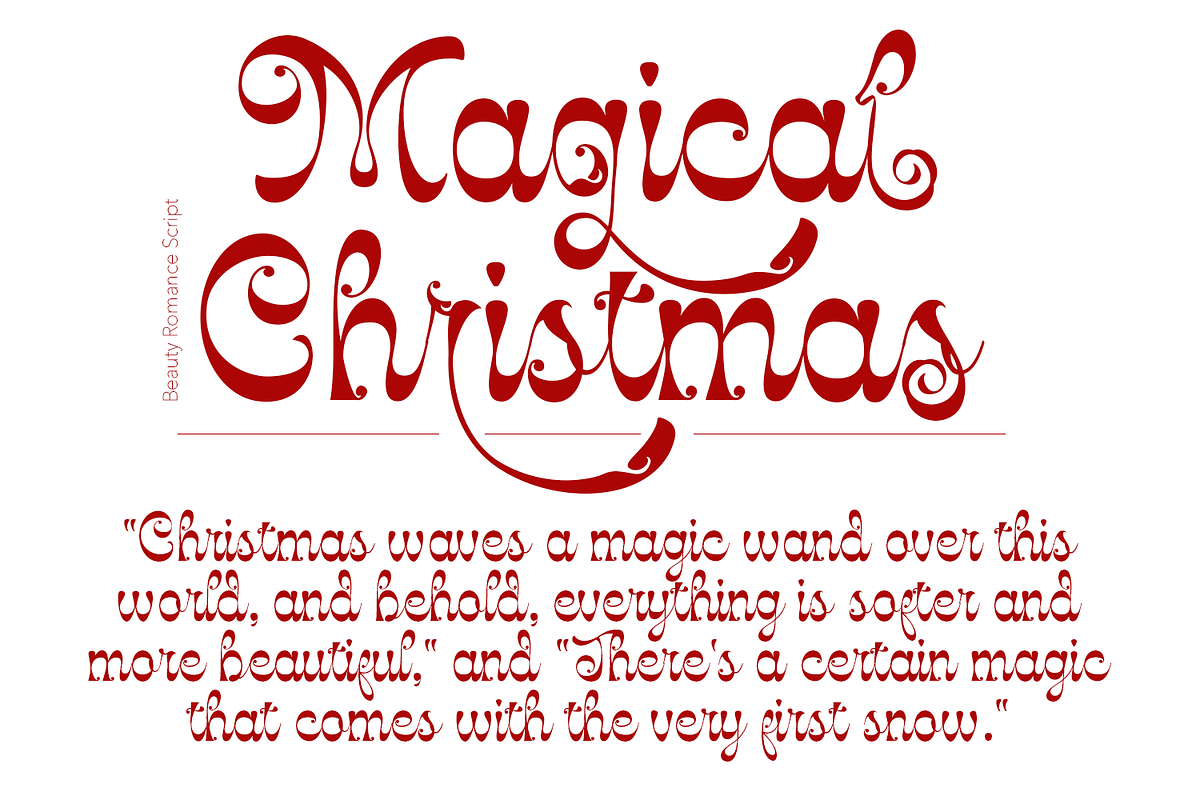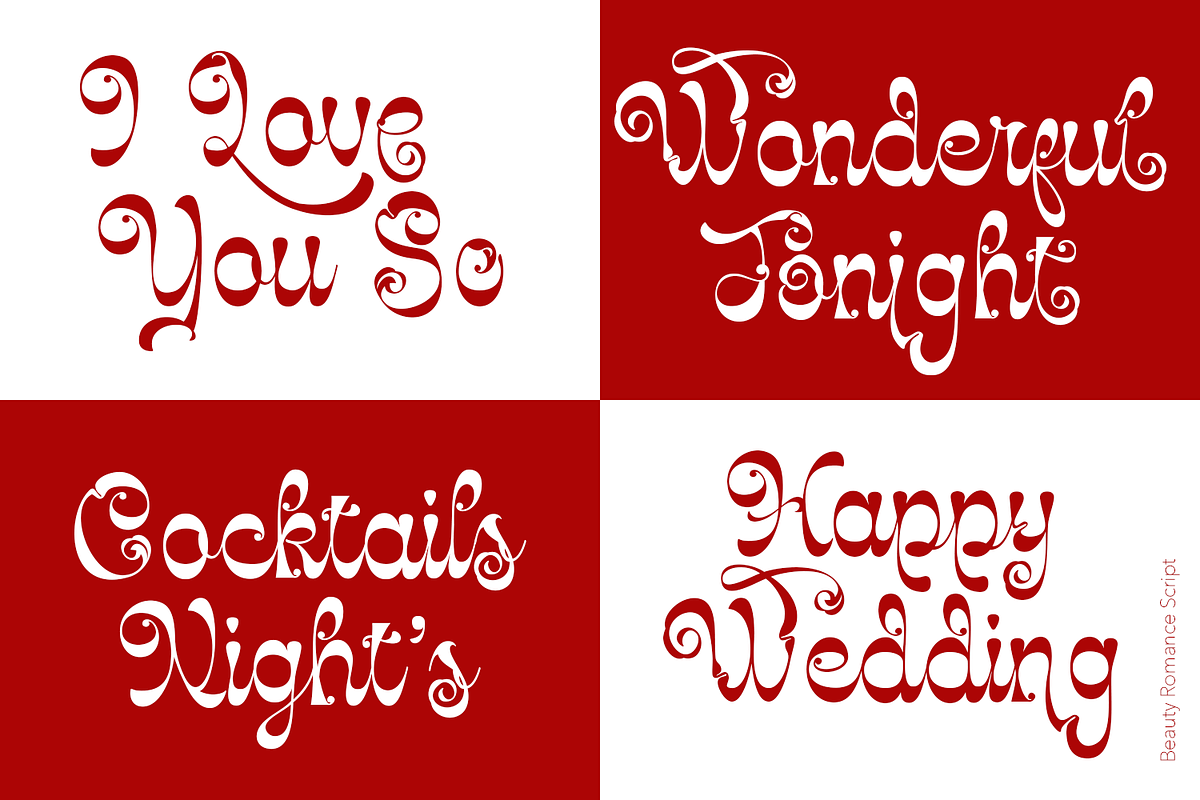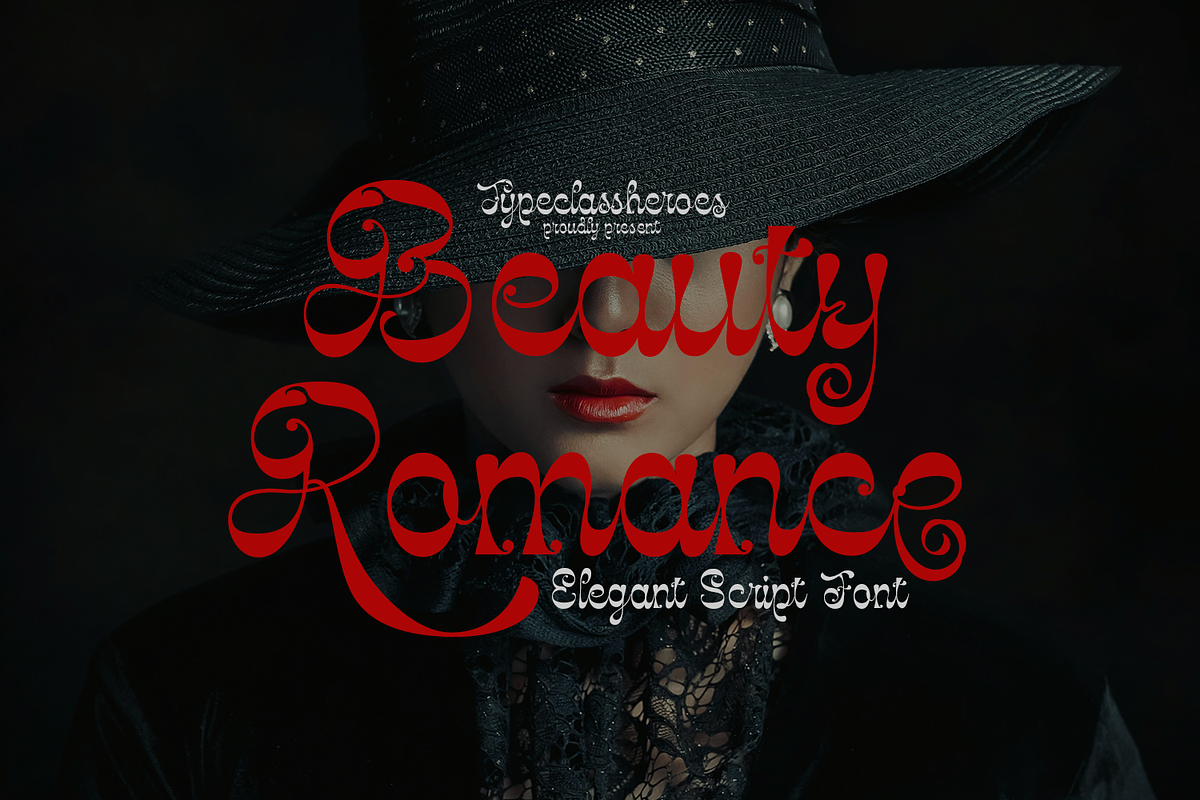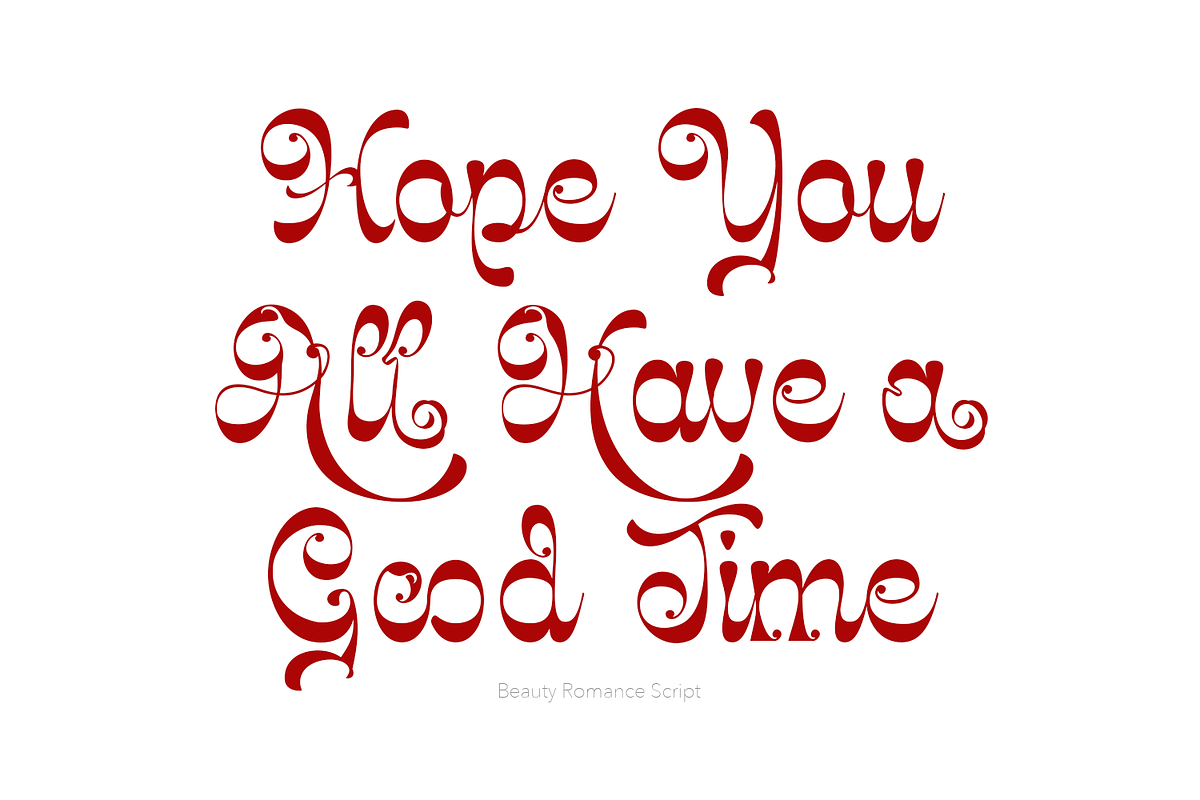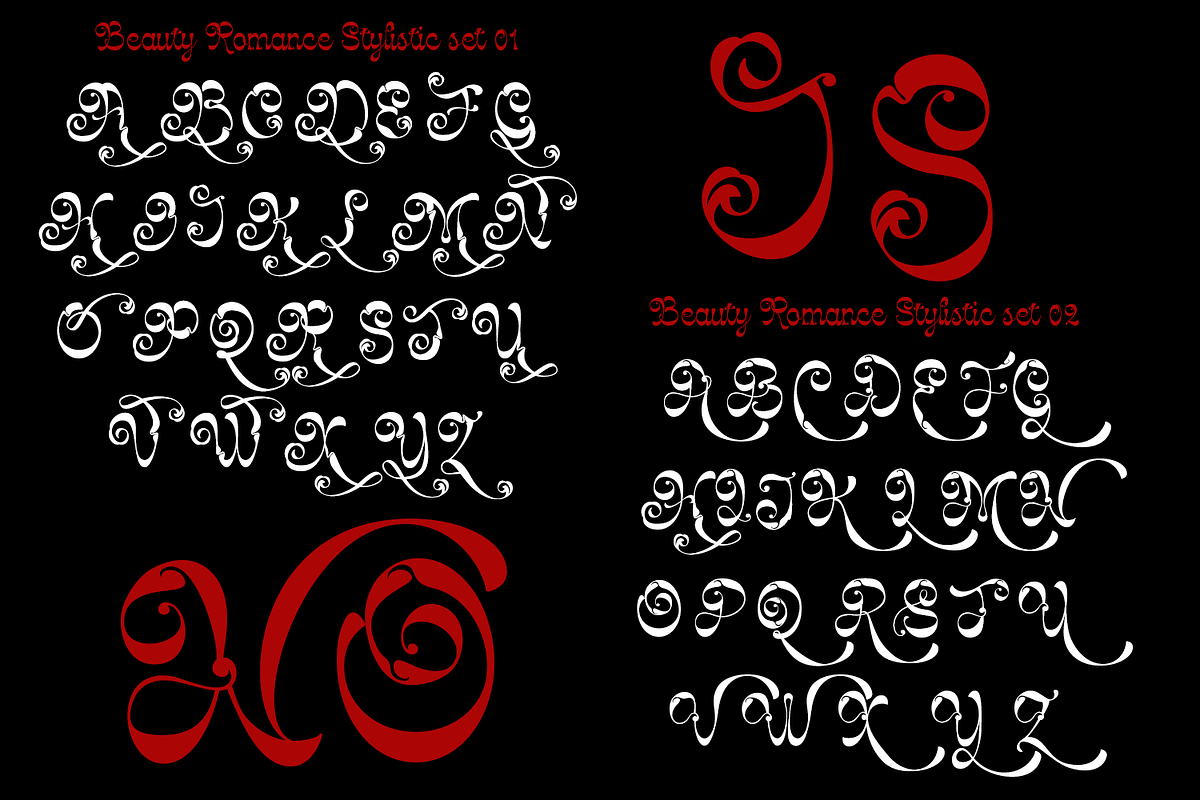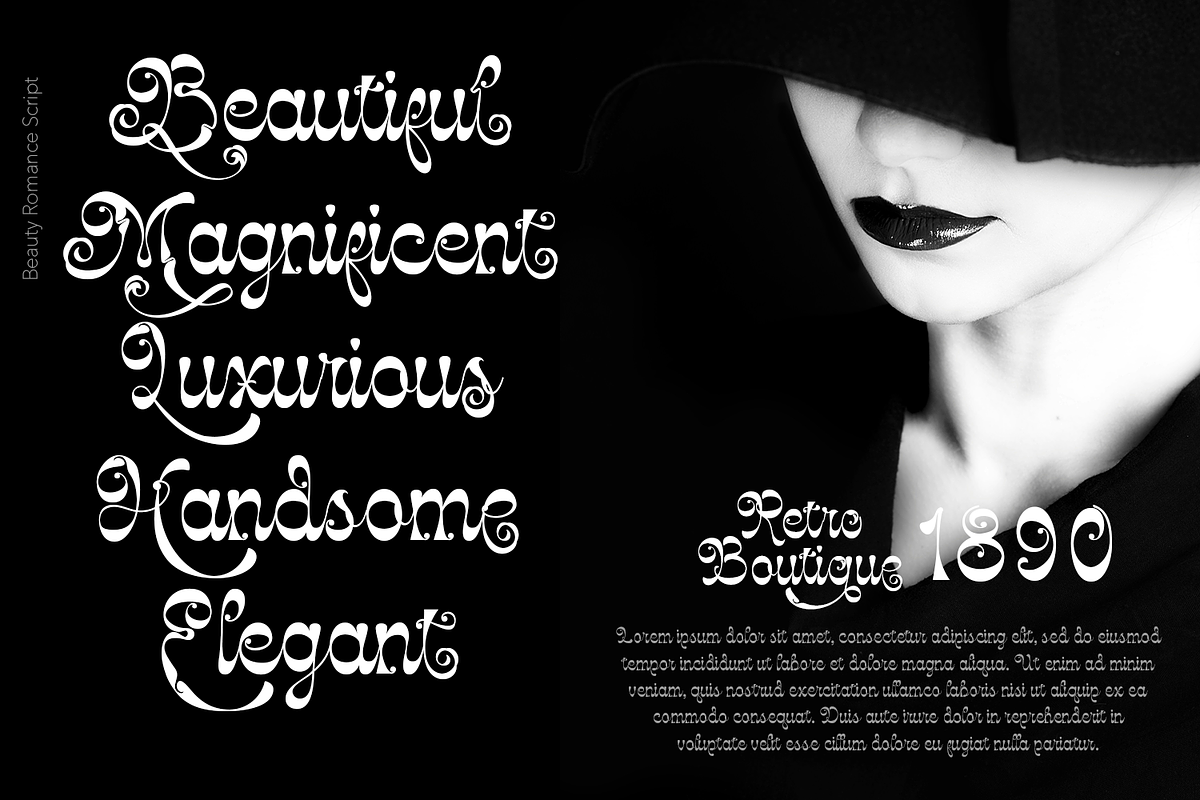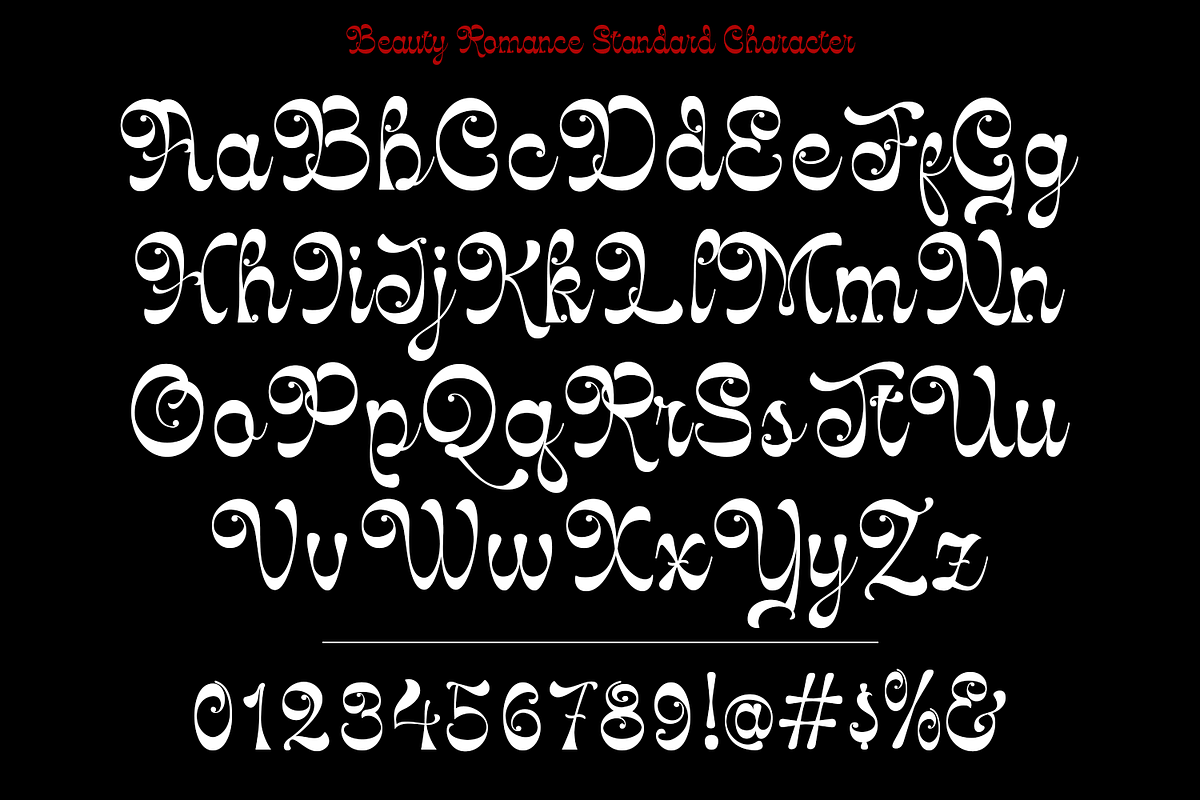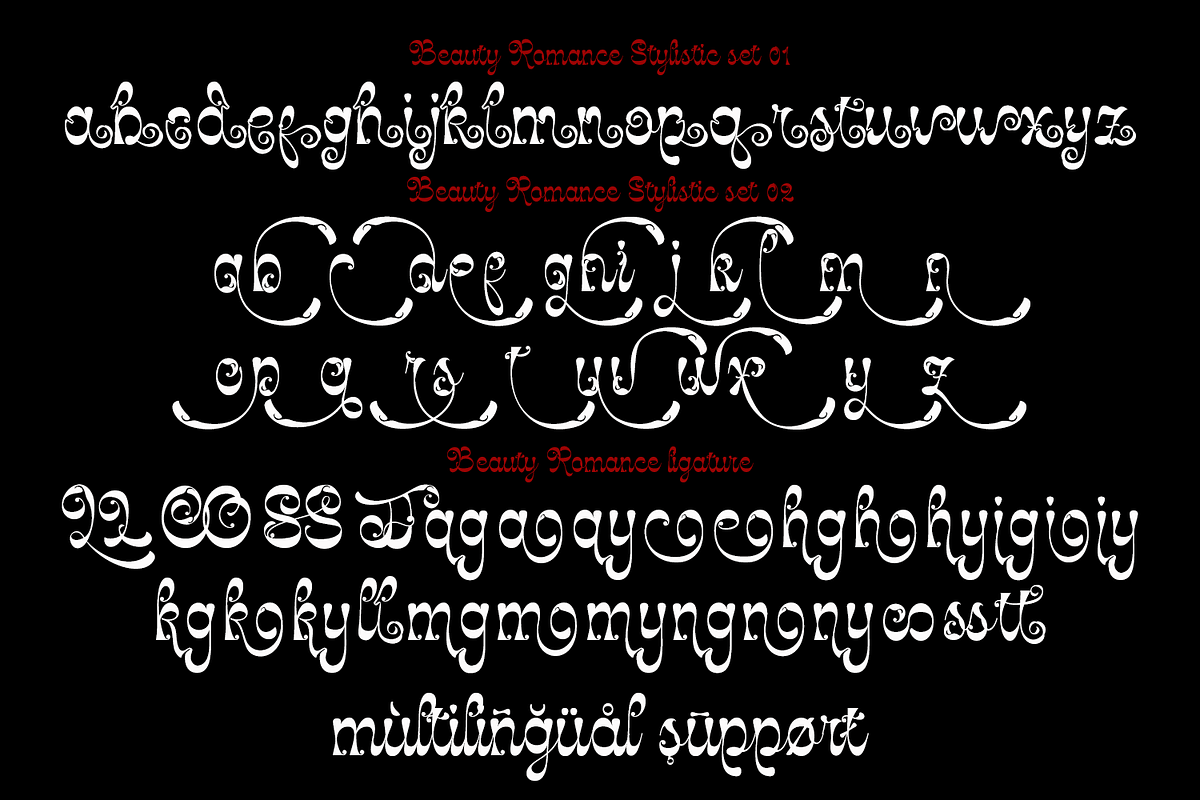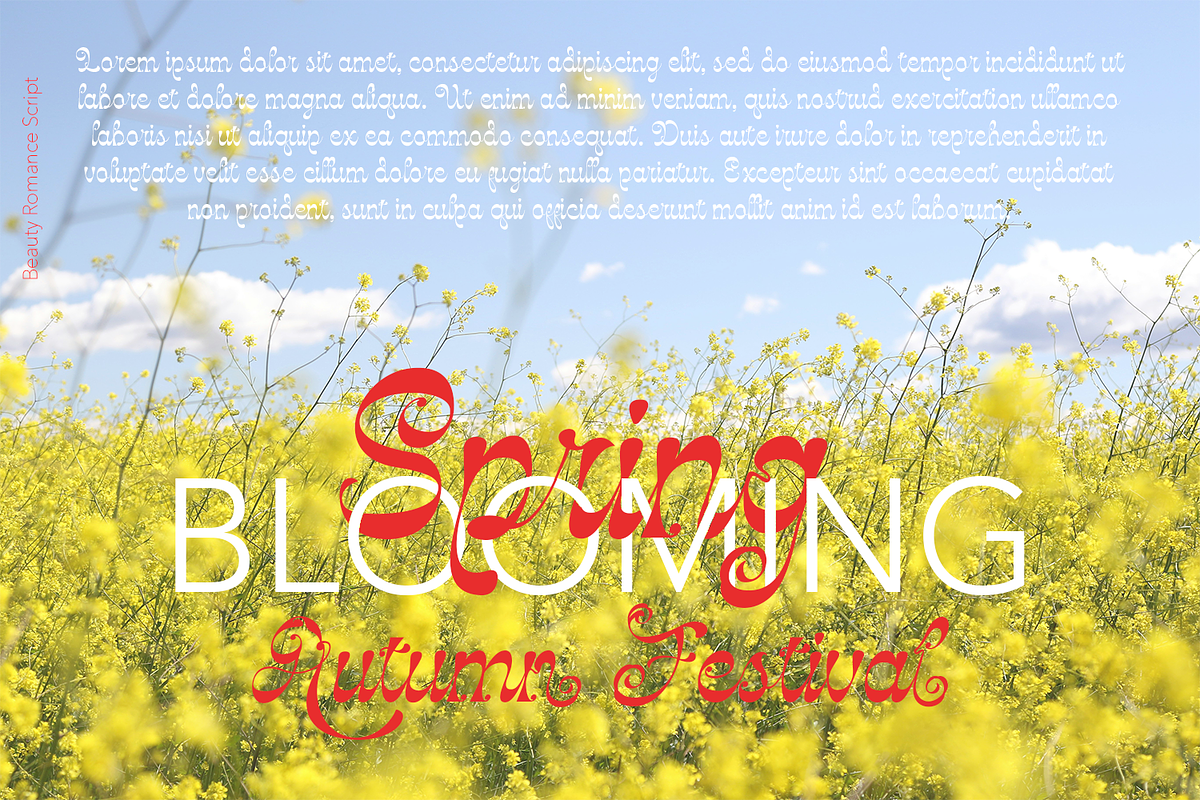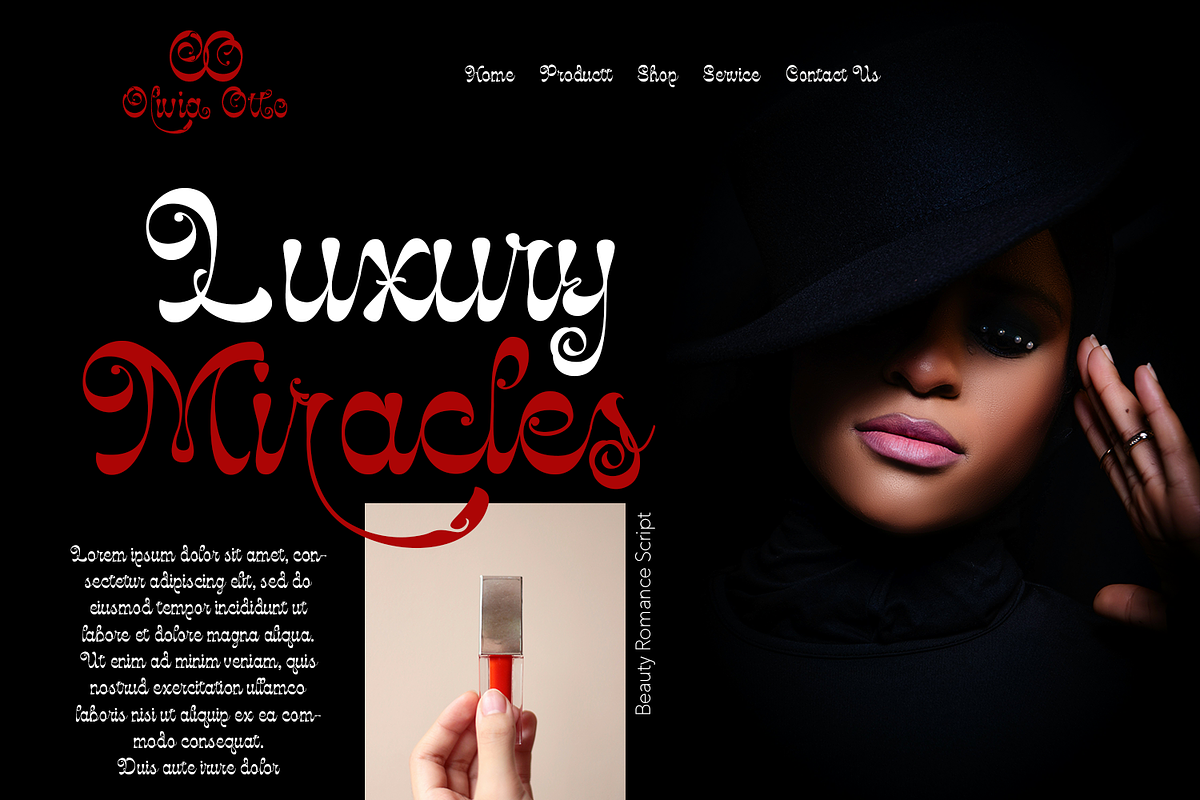
Beauty Romance Script
Hello I'm really excited to introduce Beauty Romance is a script with classic feel become an elegant wave and curly and this font has the potential to bring each of your creative ideas to the highest level. With style combine with ligatures and special alternative glyphs so you can create a lots with layouts and compositions. Beauty Romance brings a touch of luxury and bespoke custom typography to logos, websites, social media quotes, wedding branding, and many more.
- International Glyphs